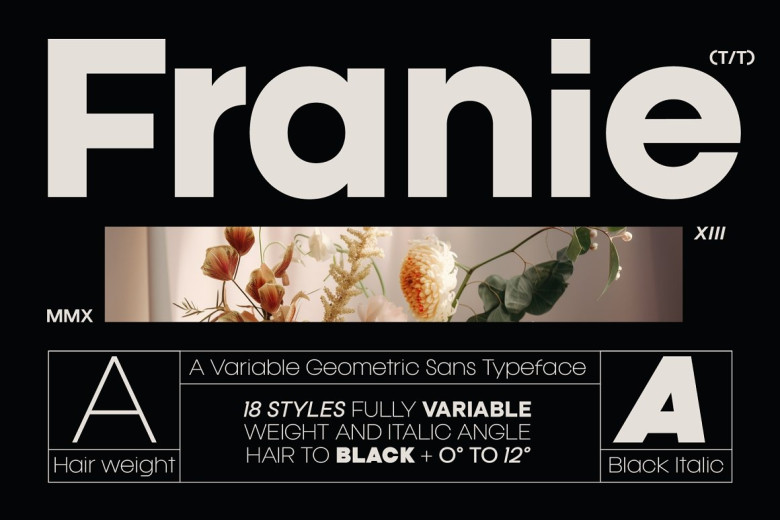
Franie Font
Franie was designed as the go-to geometric sans font family. While serious in tone, Franie has some playful elements such as its lowercase I height in heavy weights or its straight-angled curve joining lower case “g” and “i”. Fanie But is not your average Geometric Sans.
Available in 18 styles, 9 weights and Italics to give you exactly the feel you desire, it features everything from hair to black with angles ranging from 0-12 and italics angles of 0-12 for you to select from.
Franie Sans Serif Font Family